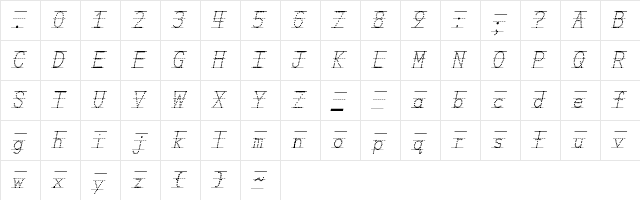
Miss Olsen's Classroom Italic
| Designer | Brenda Olsen |
Design Context for Miss Olsen's Classroom Typeface
Miss Olsen's Classroom offers clean, dependable letterforms without strong stylistic allegiance, making it a practical choice for designers who need flexibility. Its italic angle brings a sense of urgency and motion to the letterforms.
Pro Tip: Use Miss Olsen's Classroom for emphasis, pull quotes, and subheadings where its slanted energy can add rhythm to the layout.